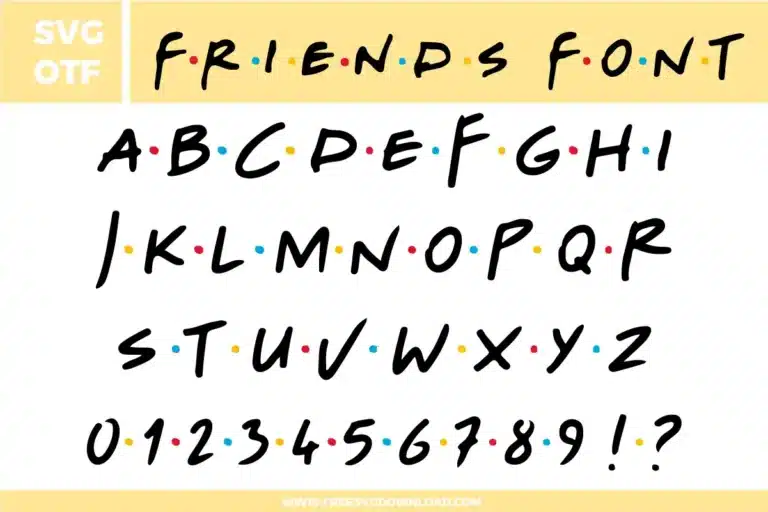
Friends Font Free SVG File
A nostalgic and handwritten Friends Font free svg files set. The design features iconic black script letters separated by colorful red, blue, and yellow dots. This OTF and SVG font bundle includes a full uppercase alphabet, numbers 0-9, and punctuation marks in the classic television sitcom style perfect for personalized coffee mugs and fan gifts.
• Friends Font SVG: Full uppercase alphabet set with matching numbers and punctuation, designed in a loose handwritten script style with the signature colored dot accents placed between the characters.
How do I use the Knockout tool for the colorful dots in this font?
Place the colorful dots over the black letters in your layout. Select a dot and its corresponding letter, then use the ‘Slice’ or ‘Subtract’ tool. This creates a precise circular opening in the letter path, allowing the dot to sit perfectly flush within the typography for a professional, single-layer feel on pressed shirts.
Hand-drawn styles like the Friends font can contain thousands of microscopic anchor points along the organic edges. Running a ‘Simplify’ command reduces these nodes, which prevents your cutting machine from ‘stuttering.’ This results in a smoother blade path and significantly faster cutting times for long quotes or names.
If the dots appear slightly irregular after importing the SVG, enter ‘Edit Nodes’ mode. Select the nodes of the circle and use the ‘Make Circle’ or ‘Smooth’ tool. This ensures the colorful accents remain perfectly round, maintaining the high-quality aesthetic of the original television title design.
The dots in this font are small and can easily catch on a dull blade. Use a fresh 45-degree Fine-Point blade and set your machine to ‘Less’ pressure with a slower speed. This prevents the blade from dragging the small colorful circles off the carrier sheet during the cut.
When applying these to apparel, avoid layering glitter HTV over standard HTV. Instead, use the knockout method mentioned above. For hard surfaces like ceramic mugs, use 651 permanent vinyl. The solvent-based adhesive is necessary to keep the thin script and small dots from peeling off during hand-washing.